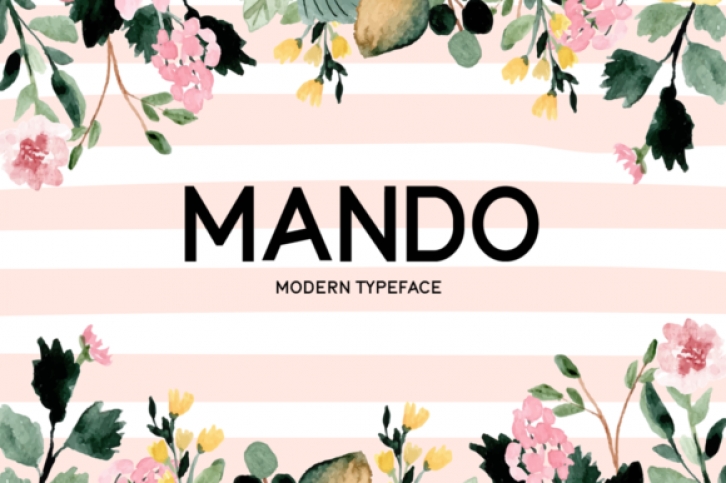
Mando is a casual, fun display font. Clean and modern, this font is the perfect fit for all of your logos, branding, social media, and crafty DIY projects.